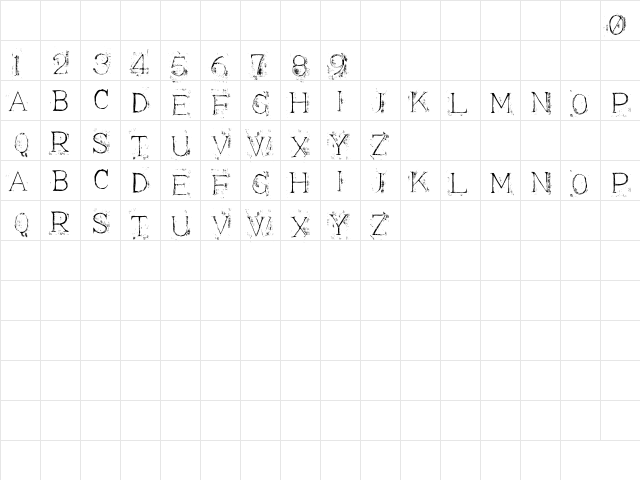
Appendix3 Regular
Design Context for Appendix3 Typeface
Appendix3 is a composed and adaptable typeface that performs quietly and consistently across a wide range of design contexts.